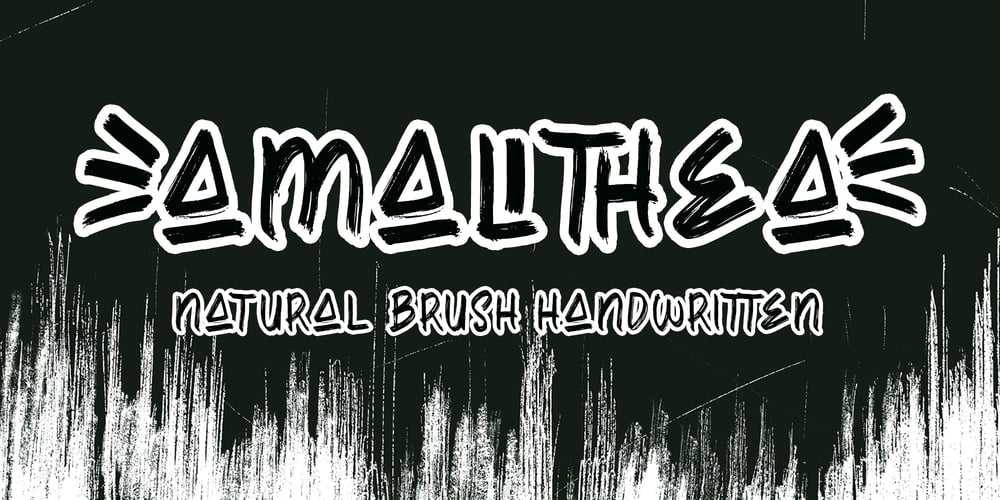
Amallthea Font Family was designed by Agung Eko Nugroho and published by AEN Creative Studio. Amallthea contains 2 styles and family package options. Amallthea is natural dry brush font. It can be used for various purposes such as logos, quotes, posters, playful lettering, clothing, and every other design which needs a unique touch.